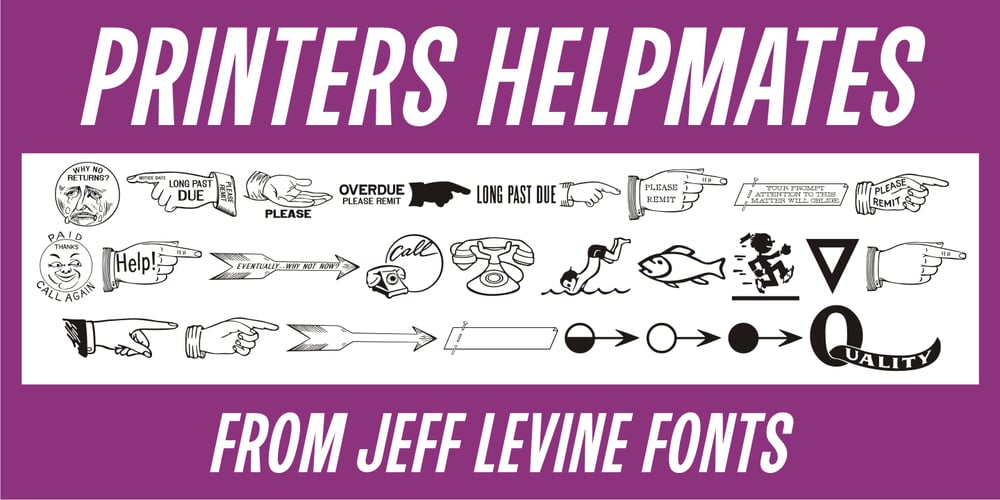
Printers Helpmates JNL Font Family was designed by Jeff Levine and published by Jeff Levine. Printers Helpmates JNL contains 1 styles and family package options. The collection of letterpress cuts included in Printers Helpers JNL offers a generous helping of billing and accounting helpers along with the usual assortment of pointing hands, stylized arrows, cartoon embellishments and other miscellaneous images.